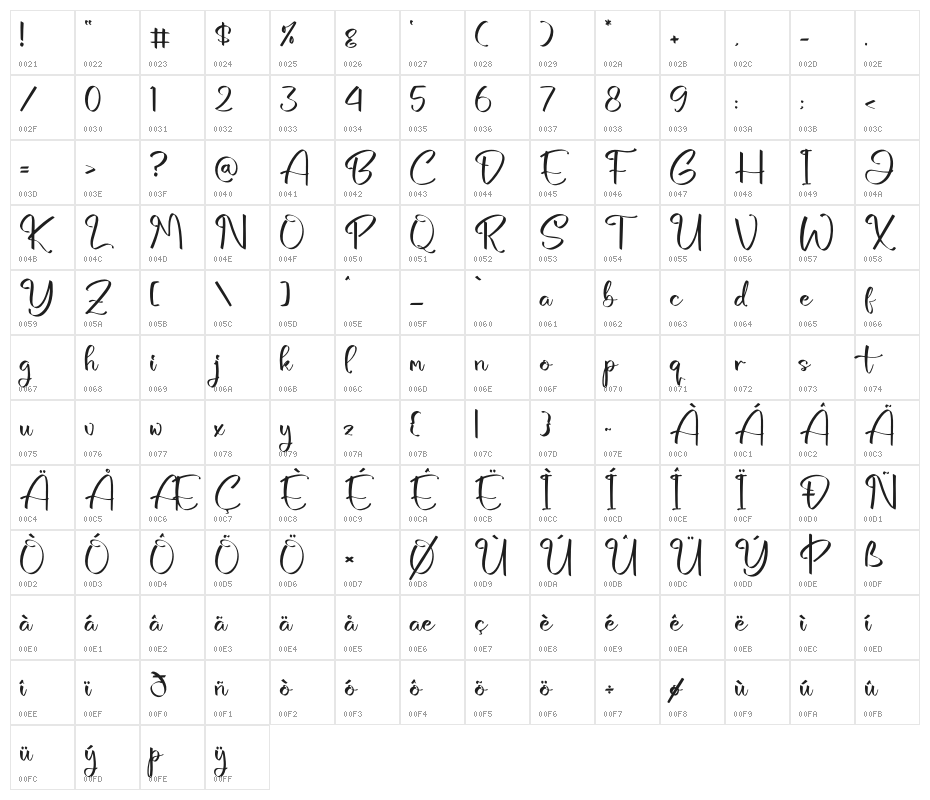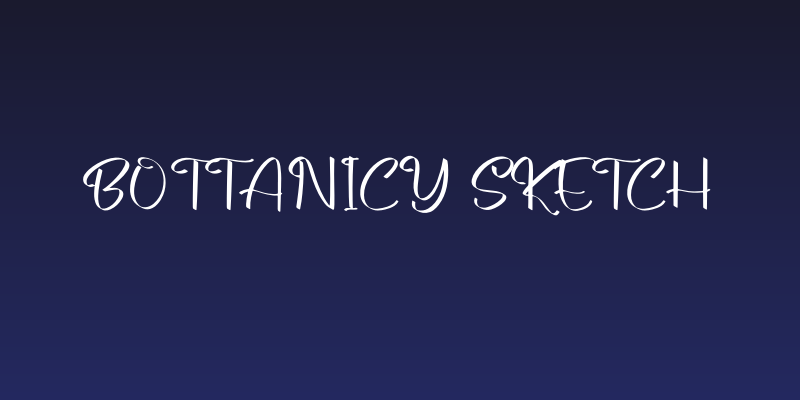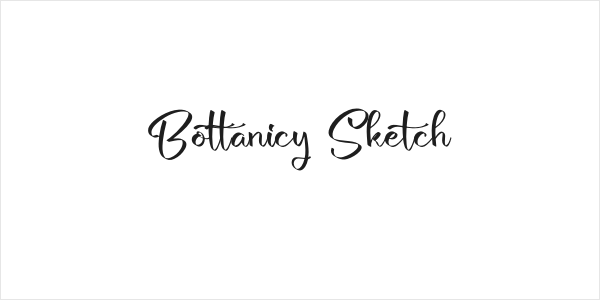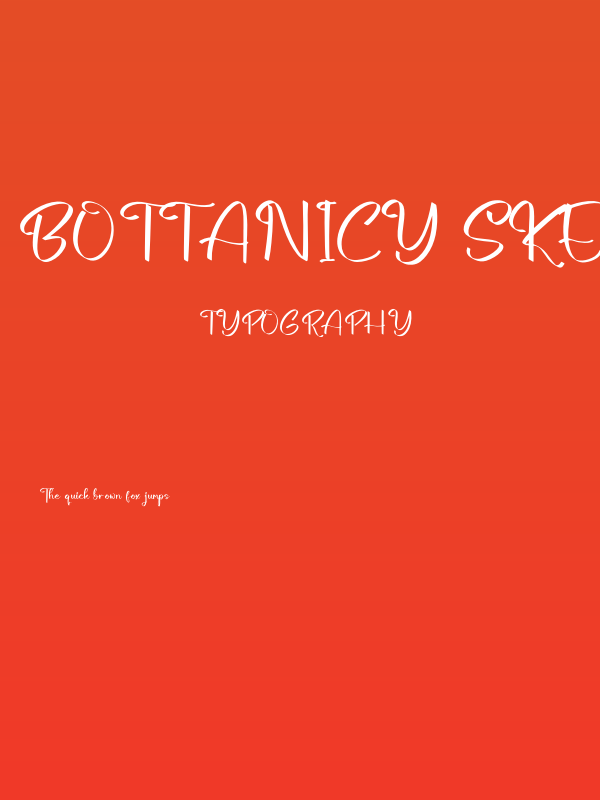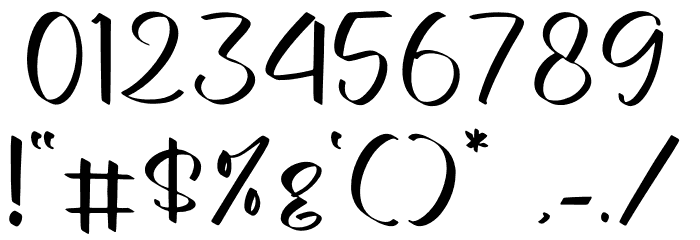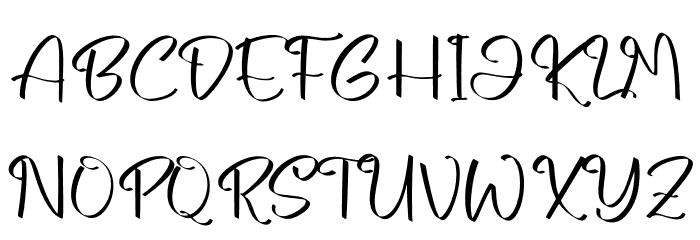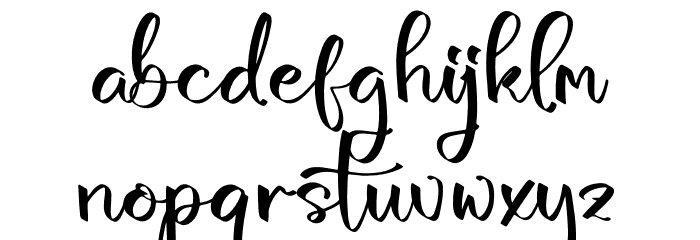
Bottanicy Sketch Font
Bottanicy Sketch Description
A playful, handwritten script font with fluid, organic strokes and a casual, sketch-like appearance. The characters feature varying stroke thickness and whimsical curves, giving it a lively and informal feel.
| Overall Style | Decorative, Playful, Organic |
| Use Case | Logos, Headlines, Invitations, Social media posts |
| Proposed Projects | Greeting cards, invitations, branding, social media graphics, creative posters. |